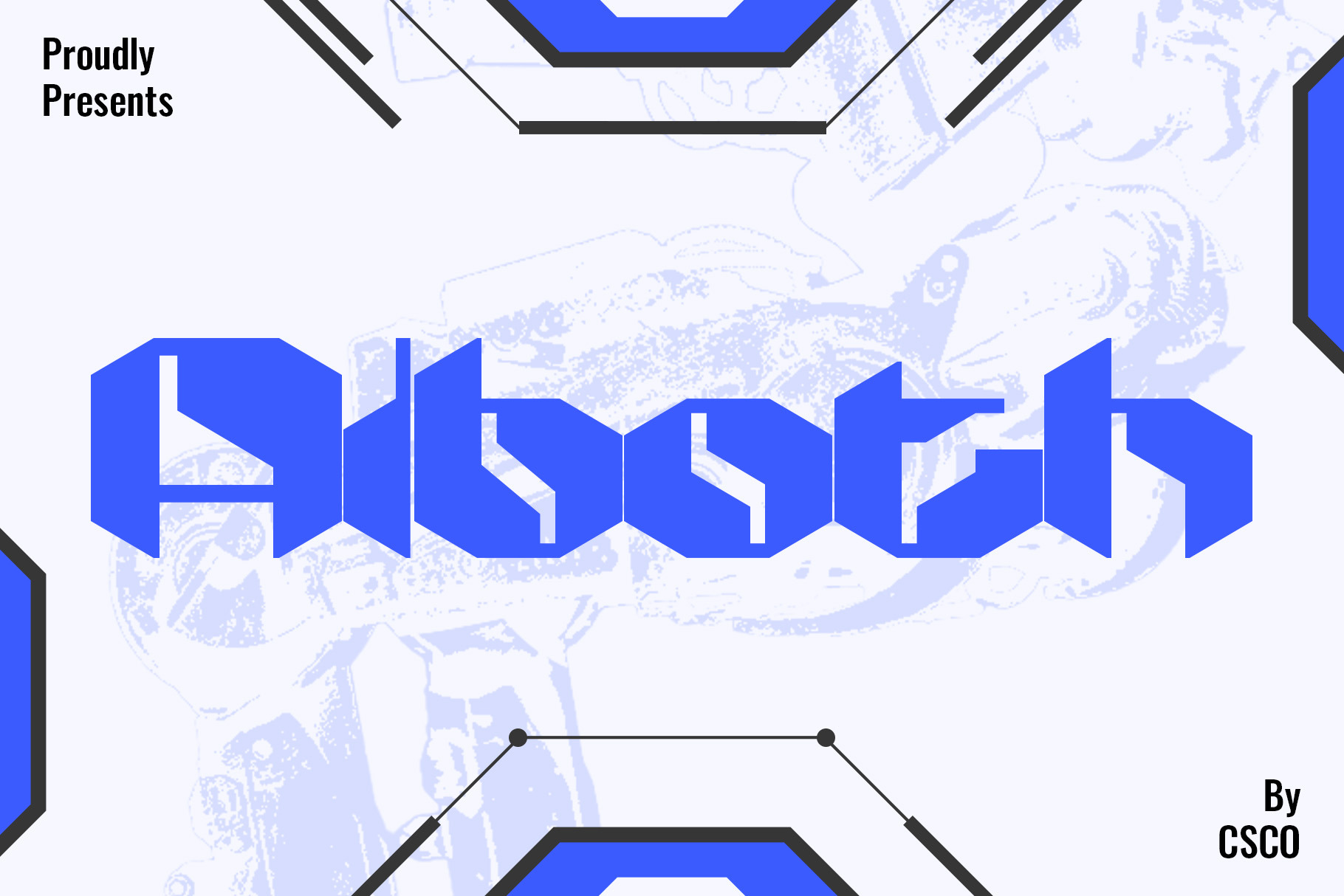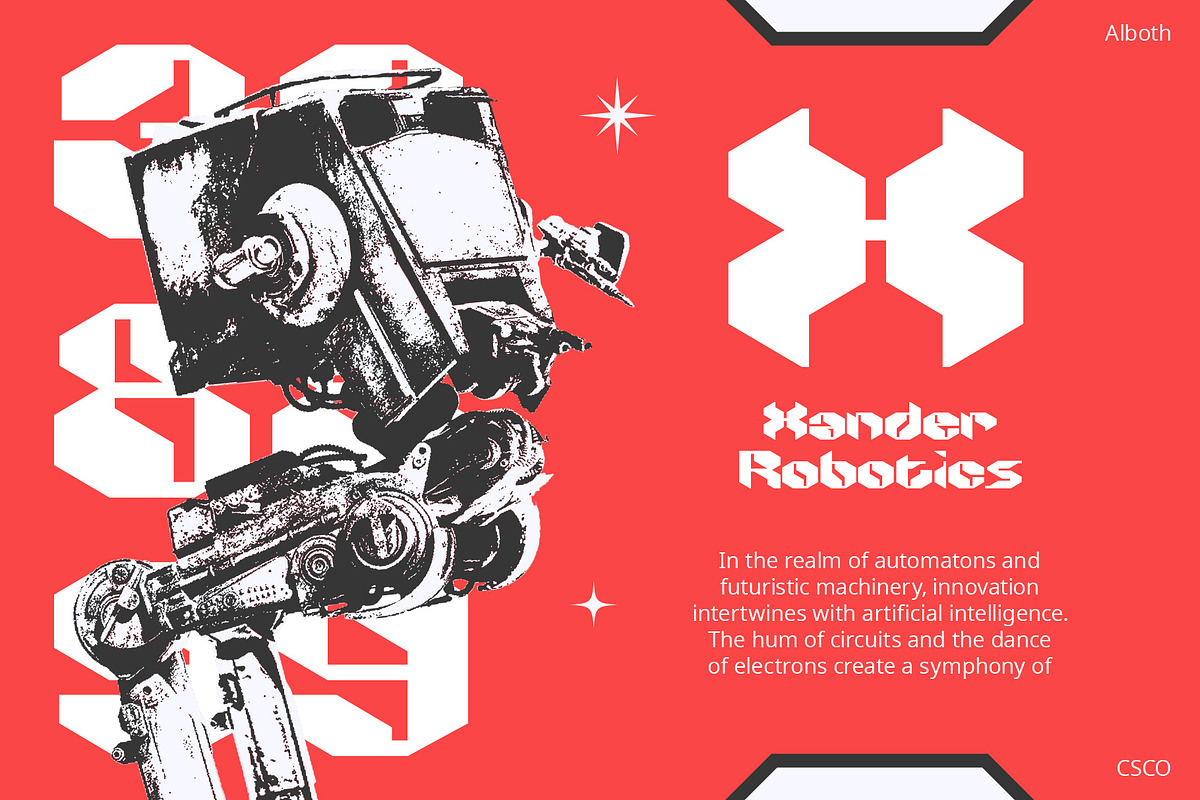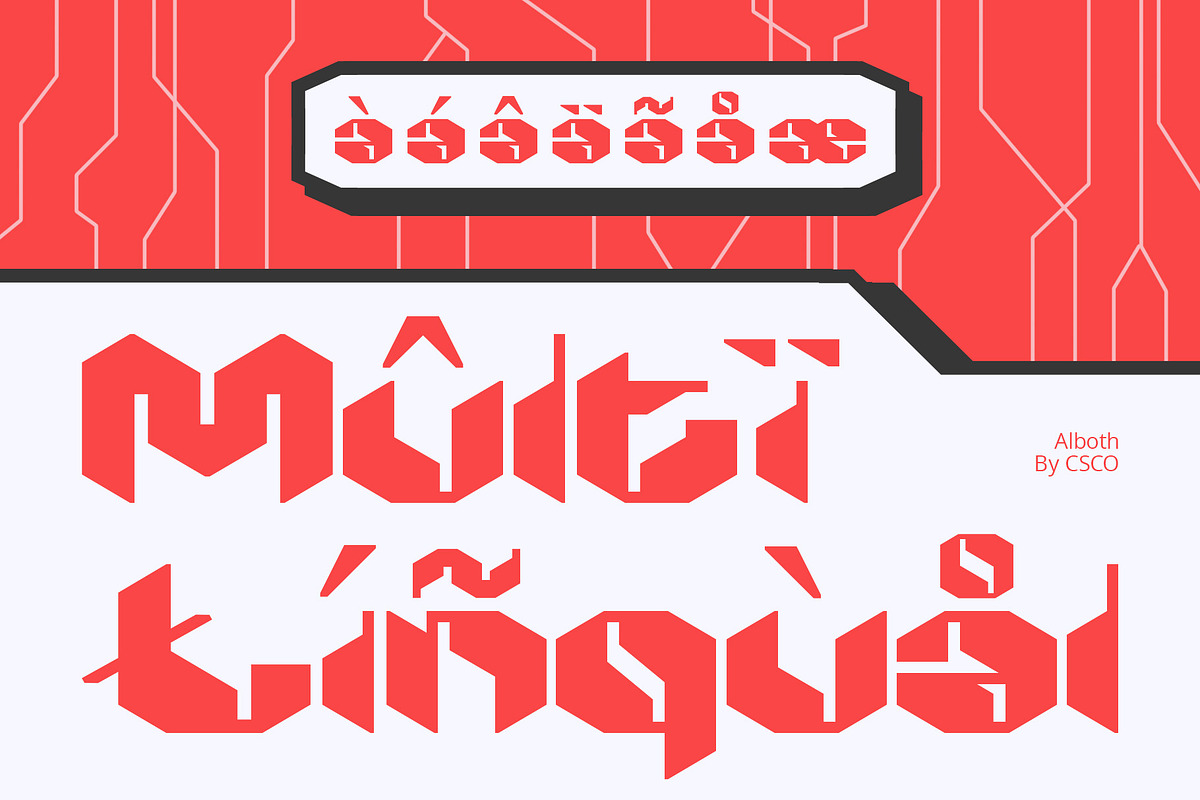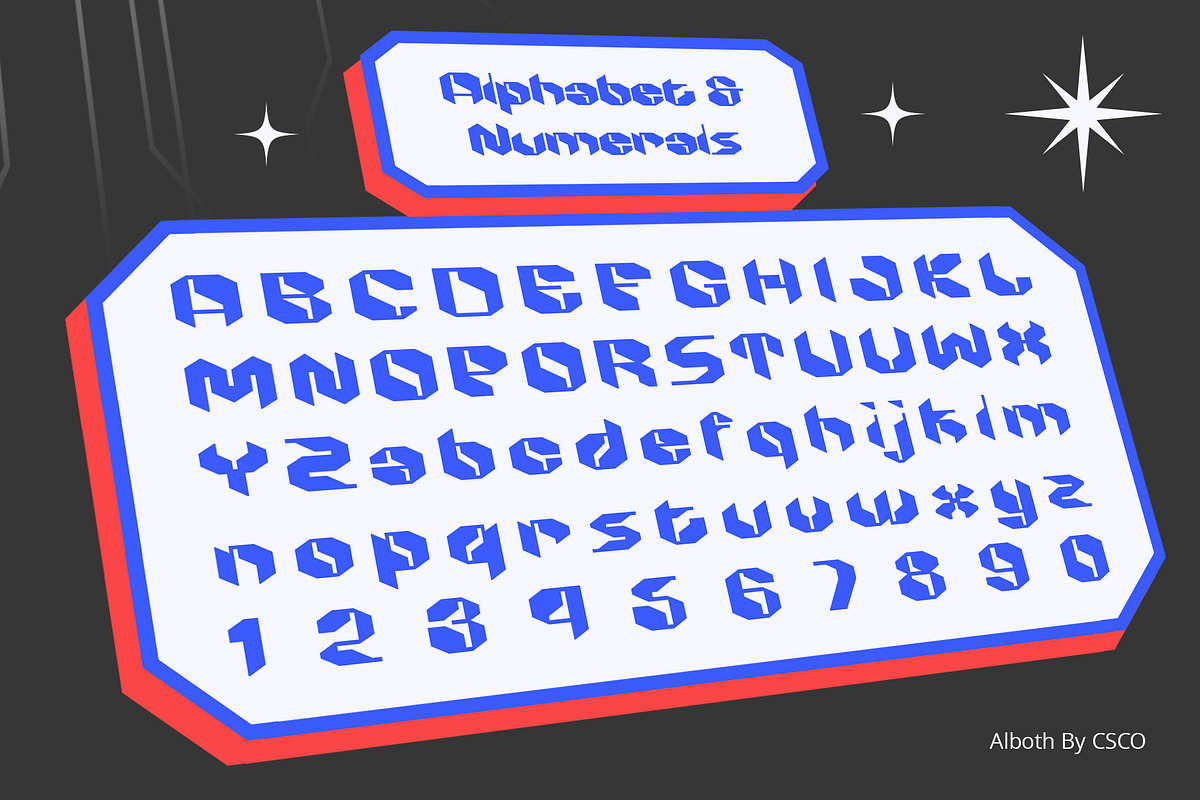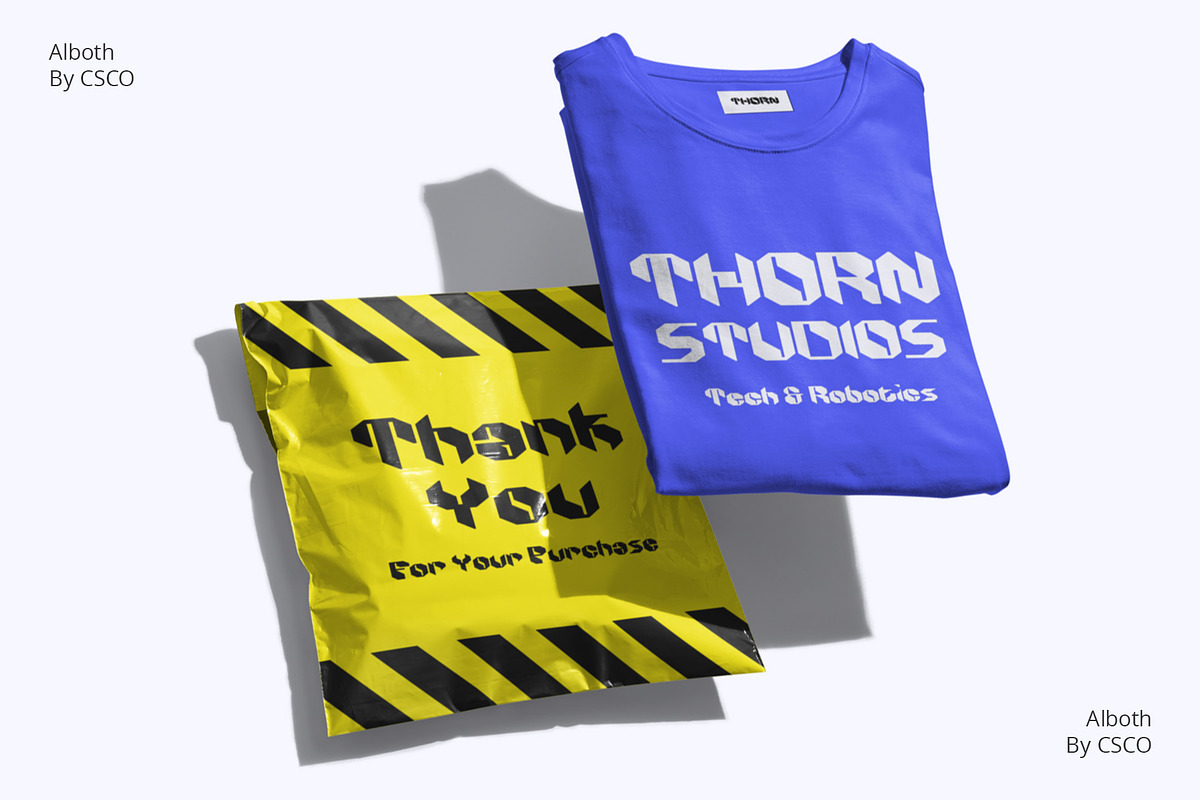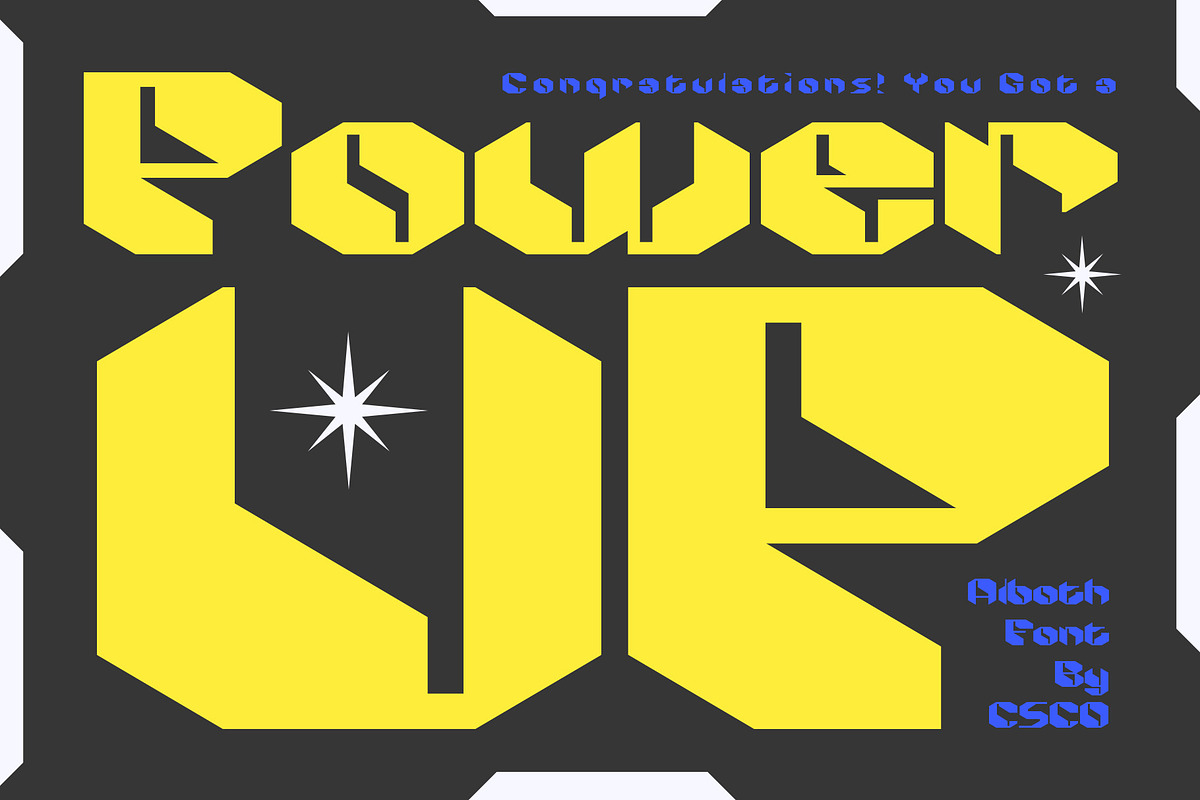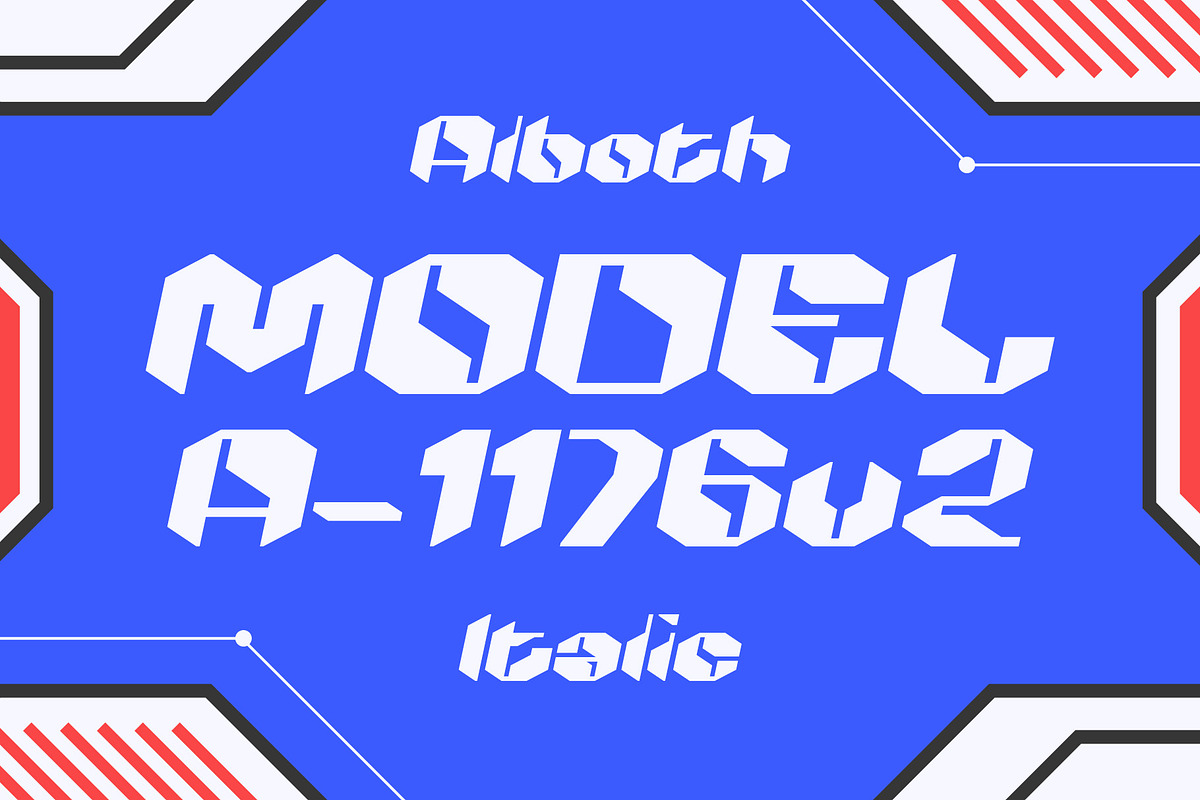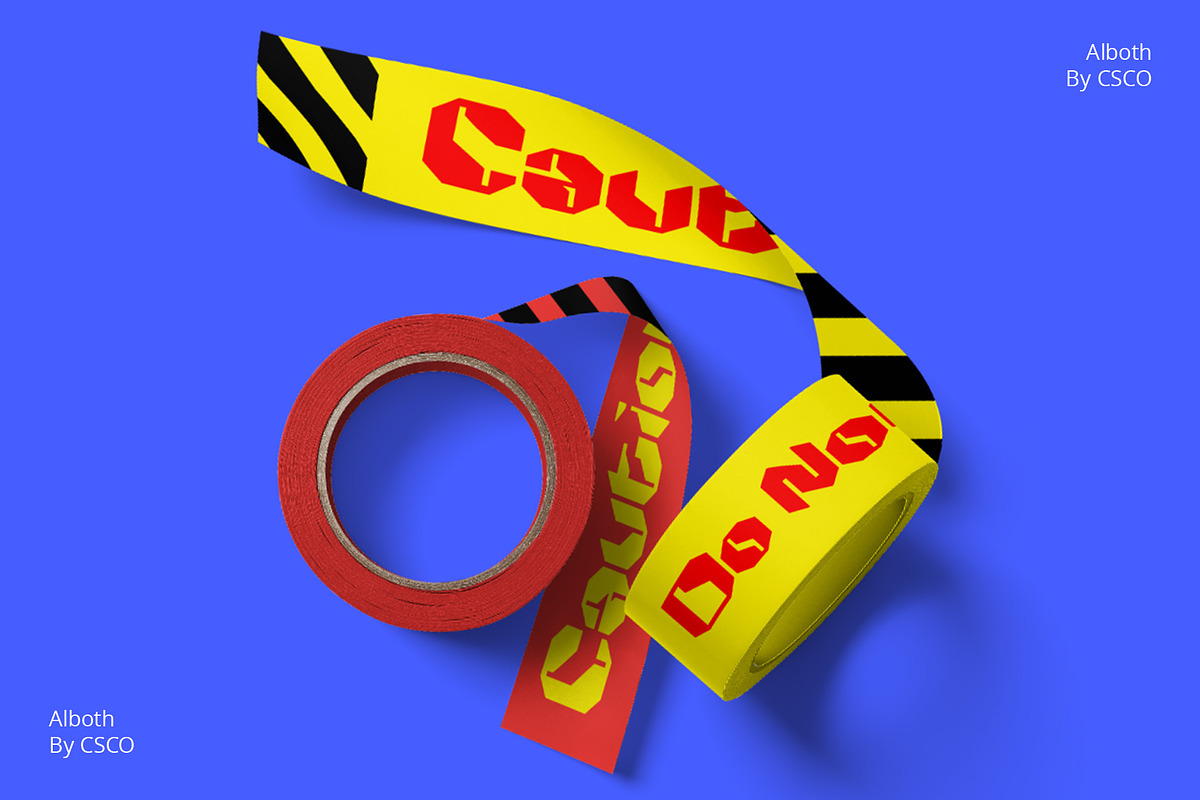
Alboth – Futuristic Typeface
Alboth Font – Futuristic Typography
A Futuristic Odyssey Step into the future with Alboth Font – Futuristic Typography, a font that transcends time, blending modernity with the nuances of science fiction, creating a captivating typographic journey.
Forward-Thinking Design Alboth breaks the mold of conventional typography, embracing a forward-thinking design ethos. Its sleek and bold appearance mirrors the visionary aesthetics of sci-fi realms.
Fluidity in Motion Alboth’s fluid lines and dynamic composition convey a sense of constant motion, echoing the pace of technological advancements. Each character is meticulously crafted to evoke a futuristic allure.
Adaptable to Tomorrow’s Needs Beyond its visual appeal, Alboth proves versatile, seamlessly integrating into a spectrum of design projects – from tech branding to sci-fi novel covers, offering a glimpse into tomorrow’s aesthetics.
Innovation in Every Character Alboth Font – Futuristic Typography reflects an innovative approach to type design, ensuring that your creations stand at the forefront of design evolution.
Blending Aesthetics and Functionality Alboth strikes the perfect balance between aesthetics and functionality. Its futuristic charm doesn’t compromise legibility, making it a practical choice for a variety of display applications.
- Alboth Regular
- Alboth Italic